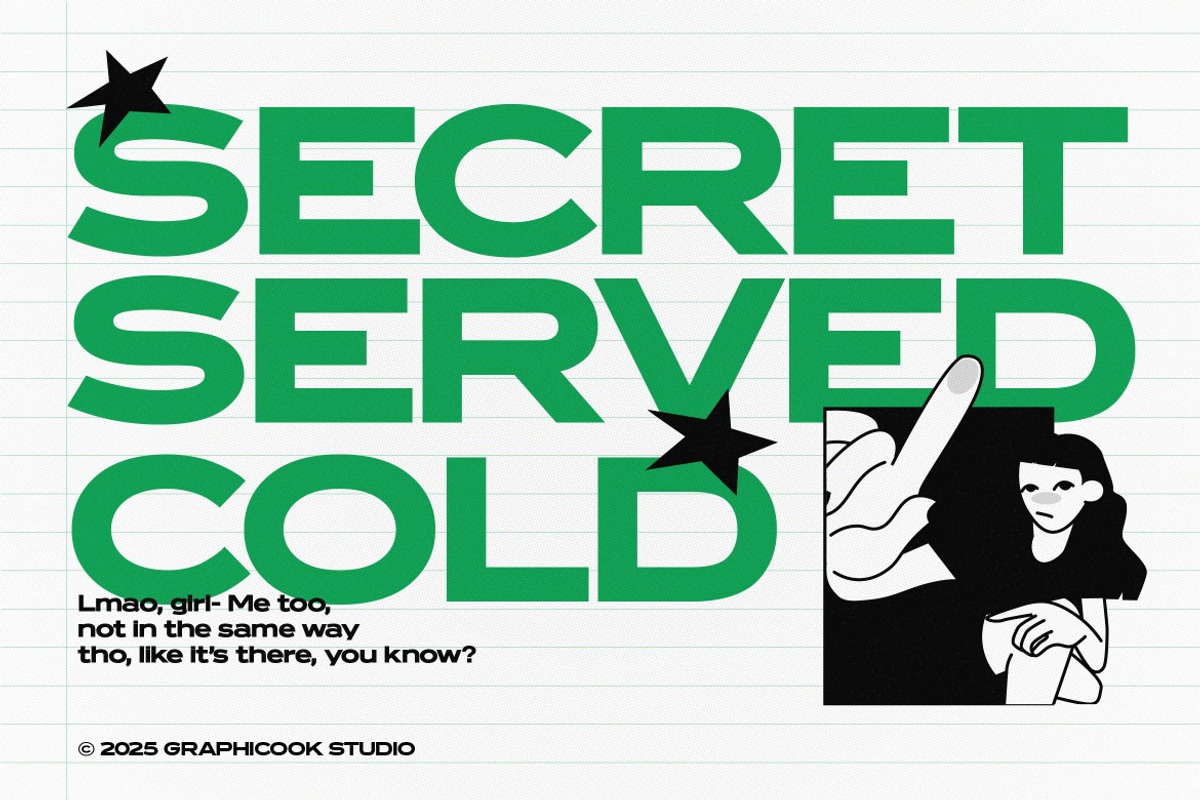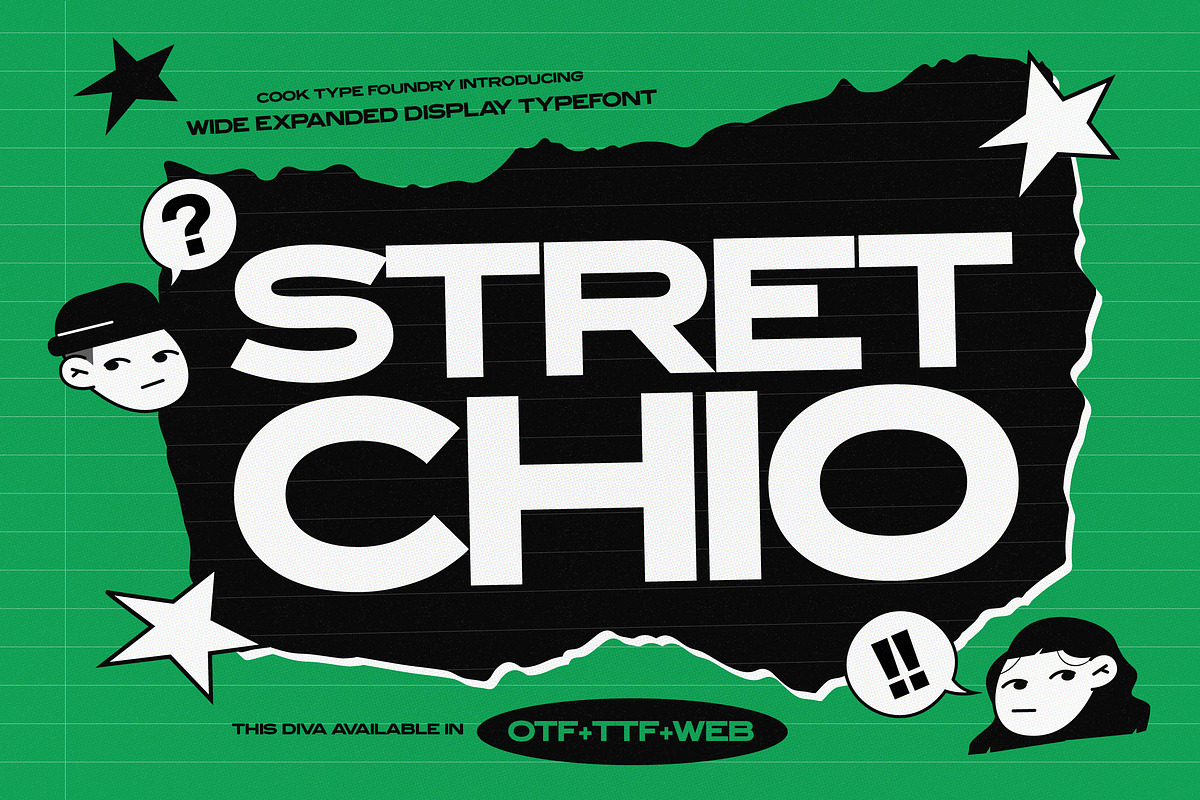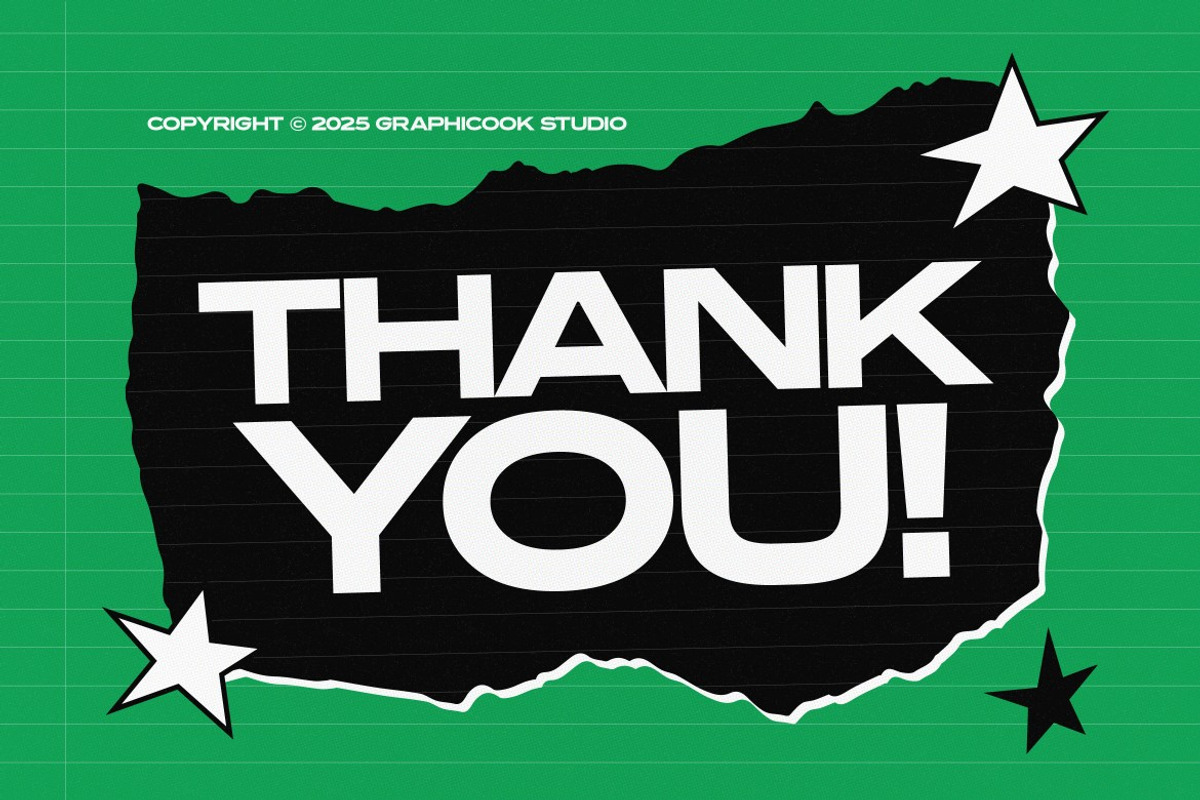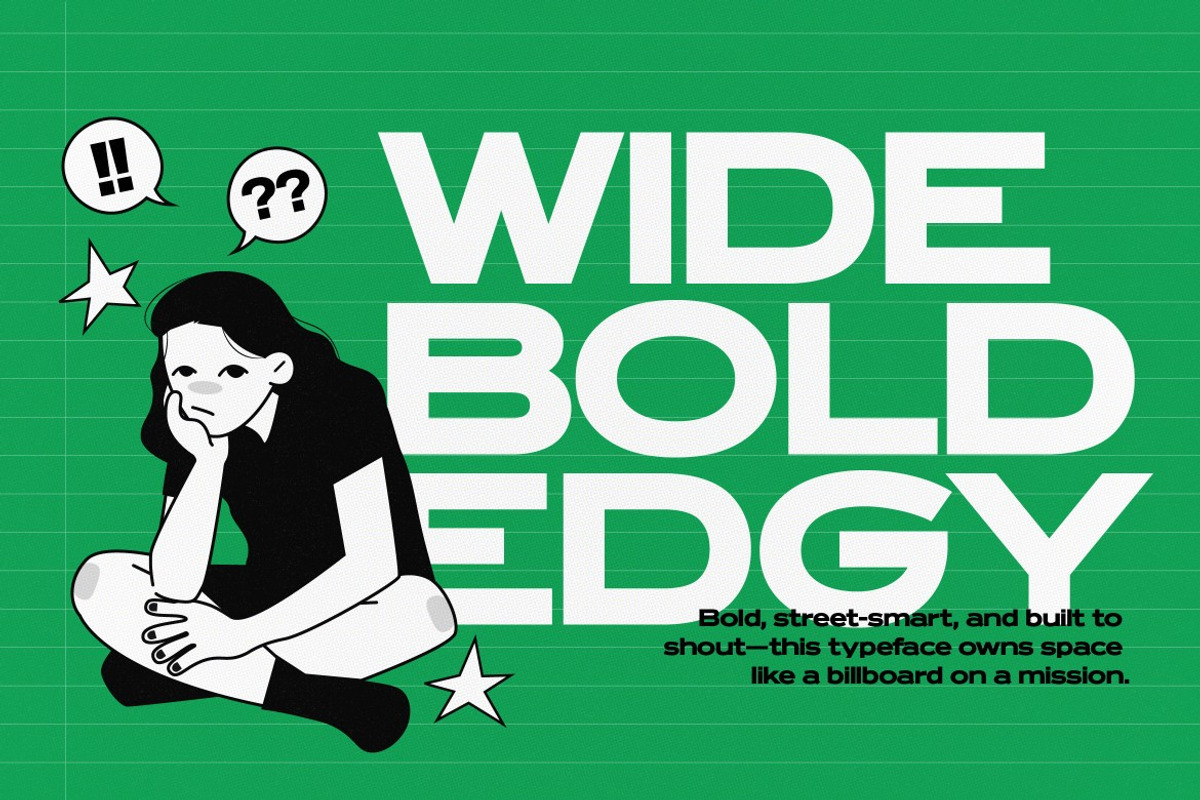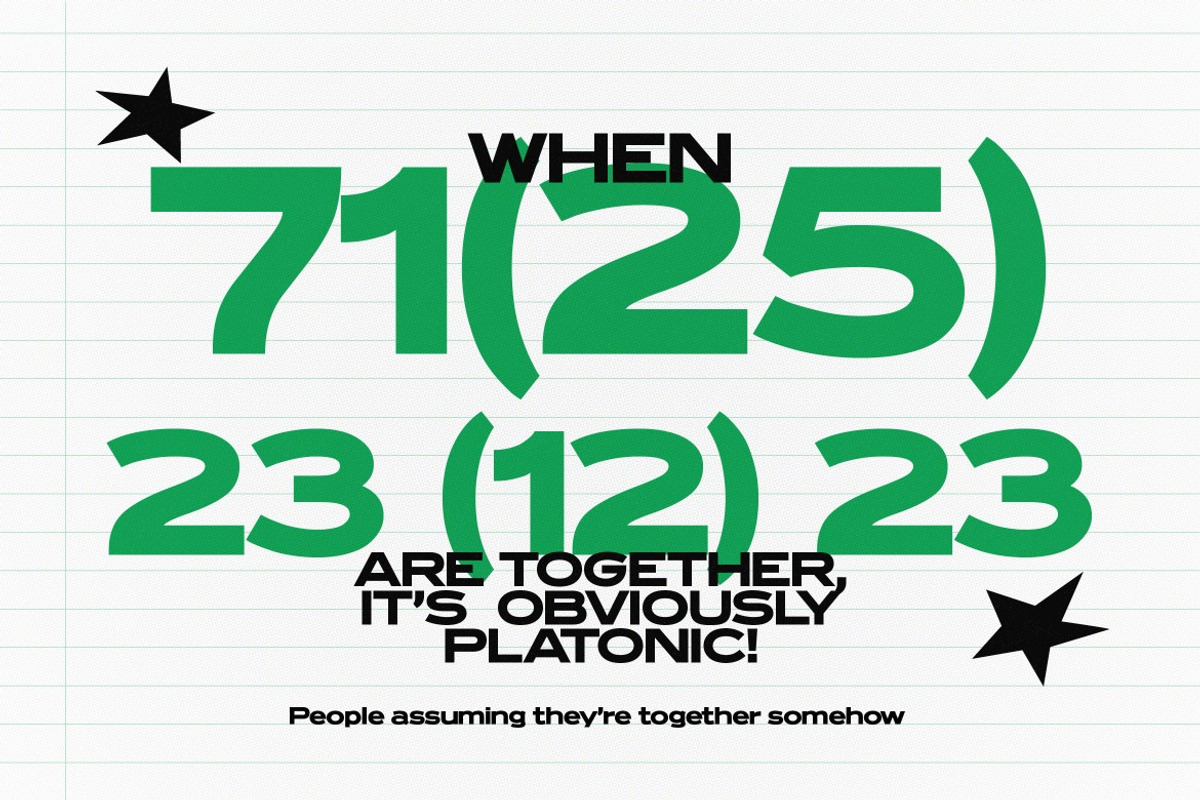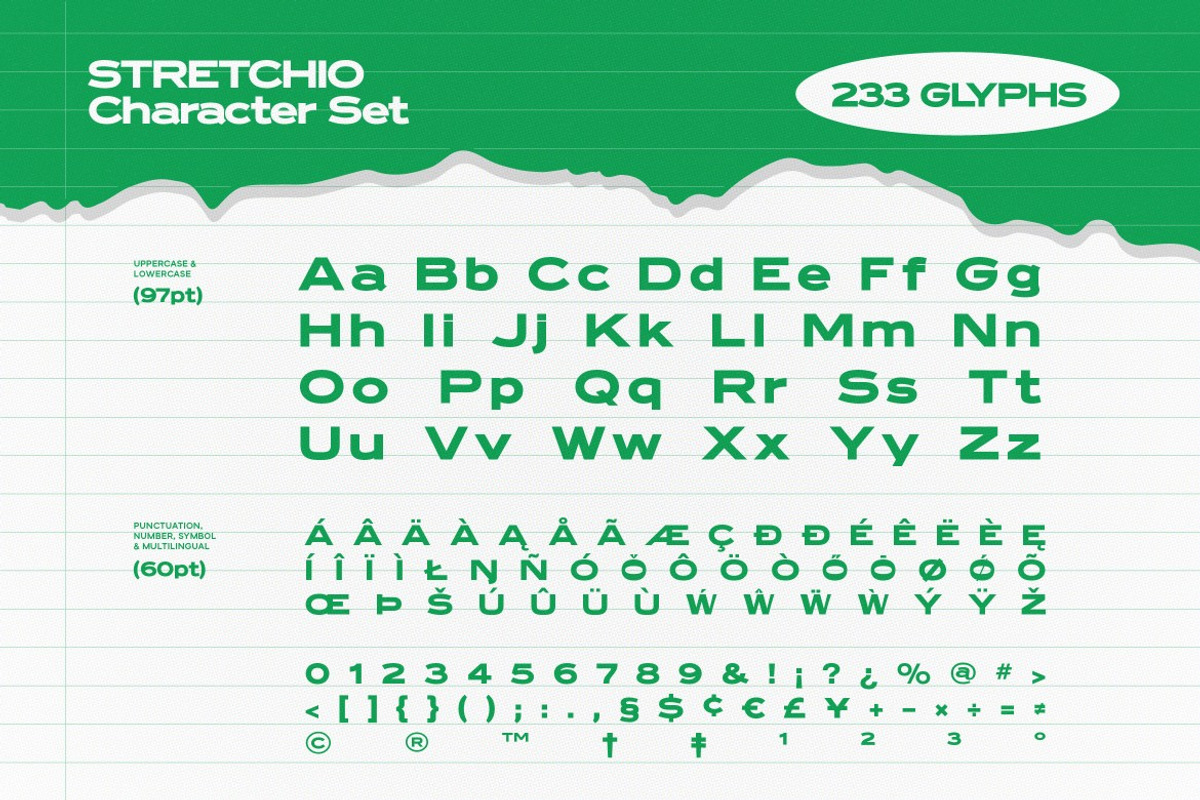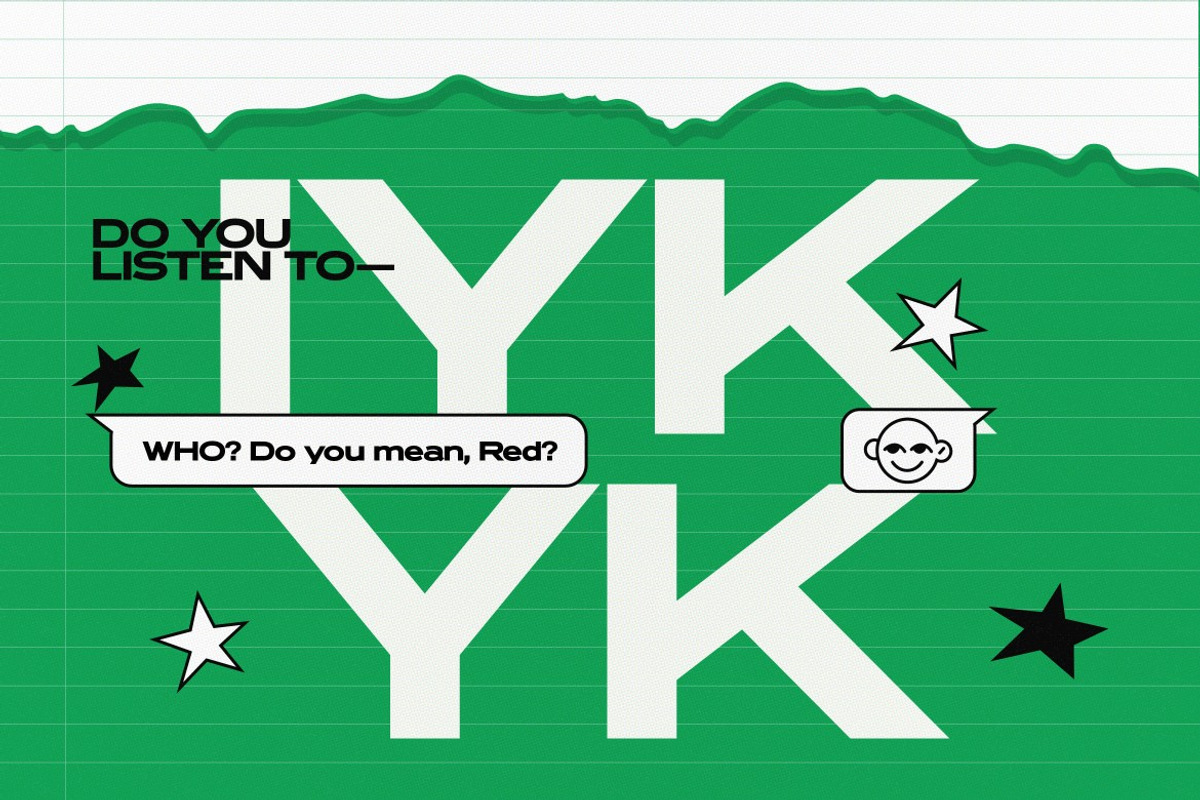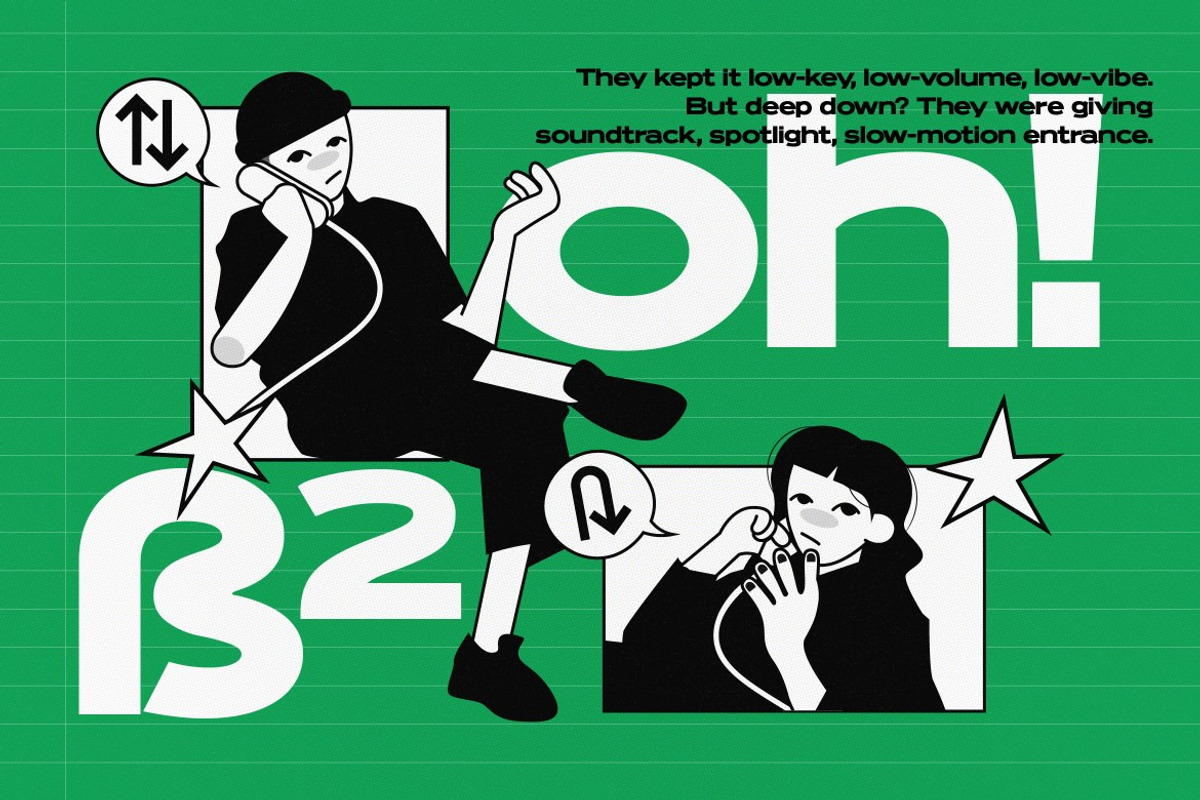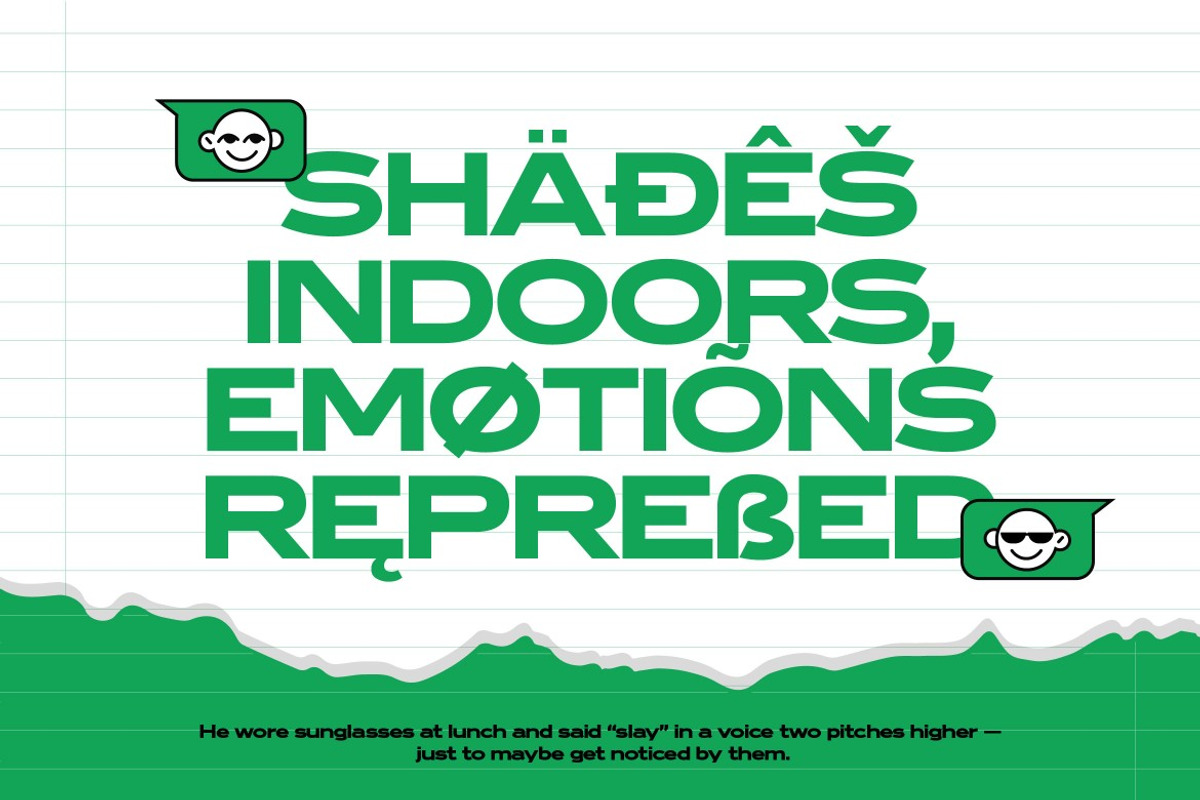
Stretchio
Stretchio is a wide, expanded font with a flat cartoon and playful style. It’s perfect for headlines and designs that embrace edgy, fun, and retro vibes.
Stretchio is perfect for headlines, logotypes, magazines, packaging, quotes, movies, games, cover albums, book covers, and flyers, it's a perfect solution for creating eye-catching designs that stand out in any context.